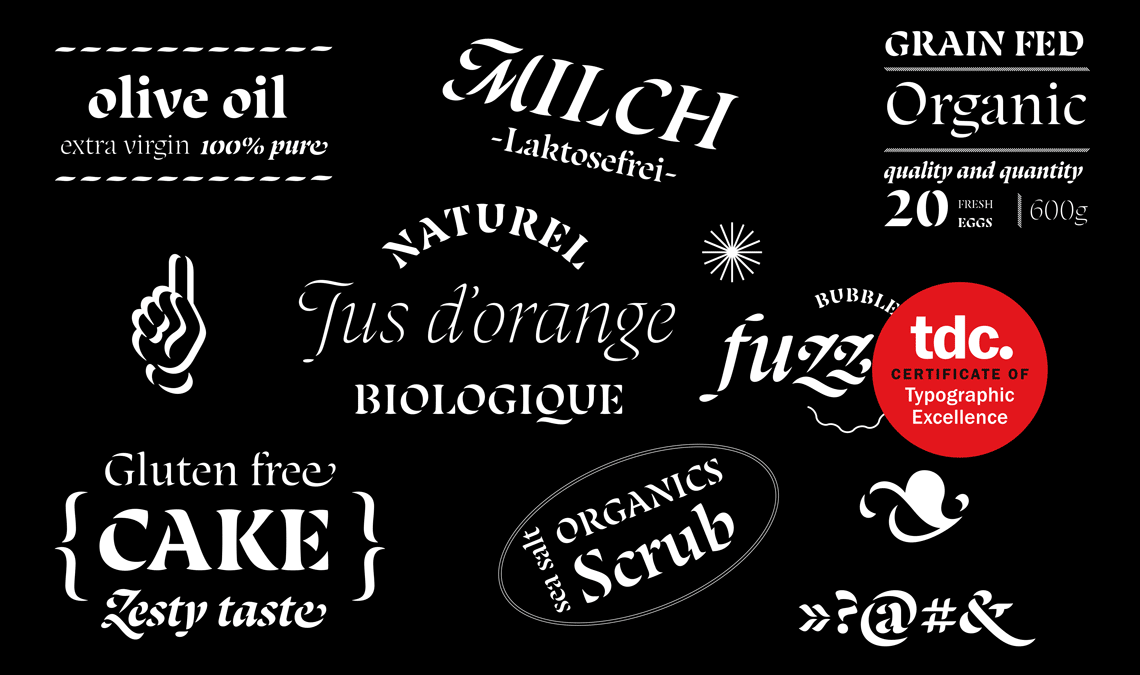
Laima receives TDC award
Bogidar Mascareñas’s Laima awarded with the Type Directors Club’s Certificate of Typographic Excellence.
Our most sincere congratulations to Bogidar Mascareñas for reciving a TDC Certificate of Excellence for his first typeface, Laima. Laima was one of the 17 winners (15 professional and 2 student) from over 300 entries and 46 countries.
Laima started as a project at the KBAK typographic course, under close supervision of type design tutors. Bogidar’s project was then awarded the Gerard Unger Scholarship (previously, Typeface Publishing Incentive Programme) and was finally shaped into today’s family for release in 2019.
Laima is now the third — yes, the third from TypeTogether — Gerard Unger Scholarship type family to receive the TDC Certificate of Excellence, after Roxane Gataud’s Bely and Juan Bruce’s Noort, and we couldn’t be happier for them.